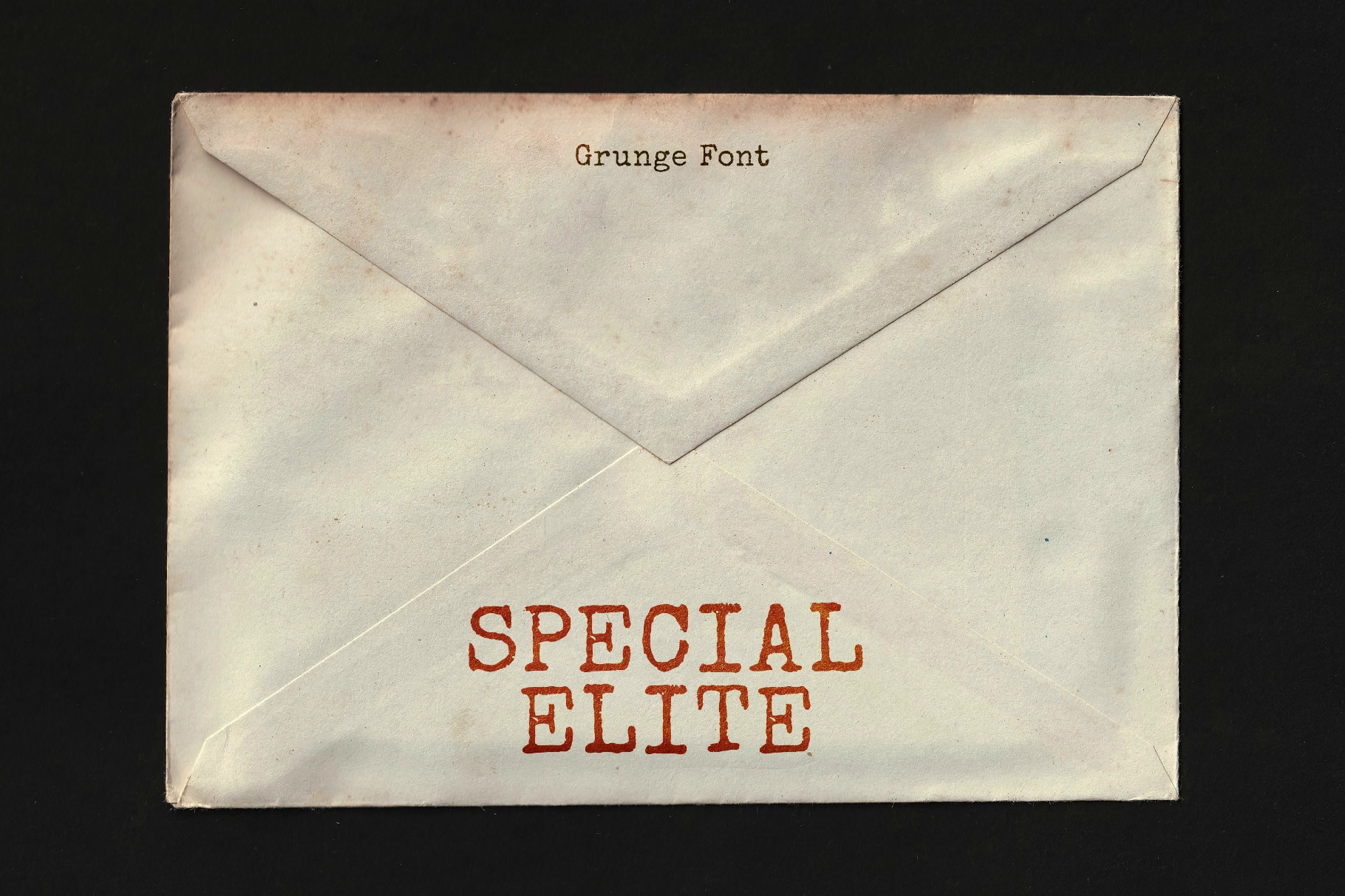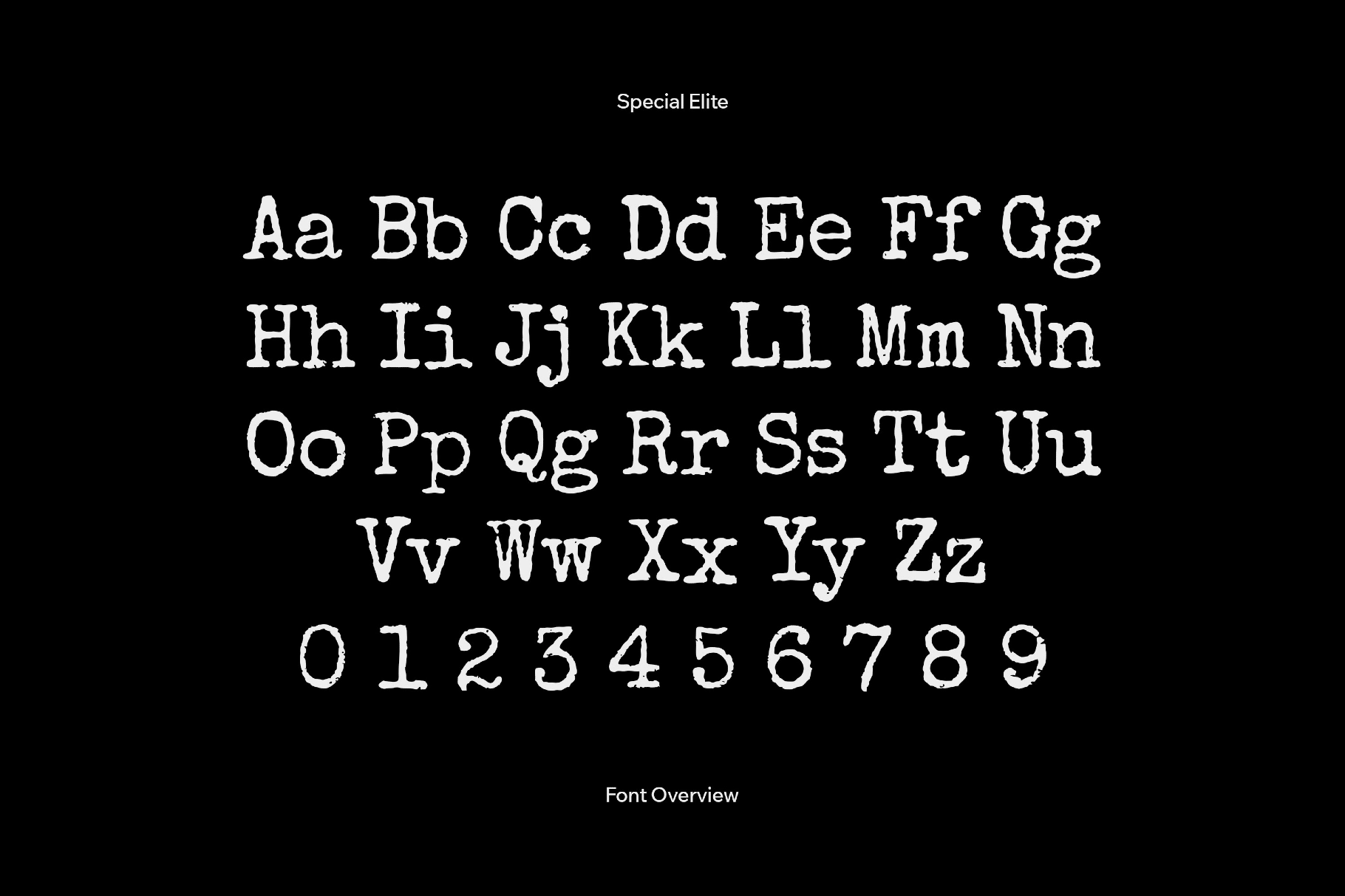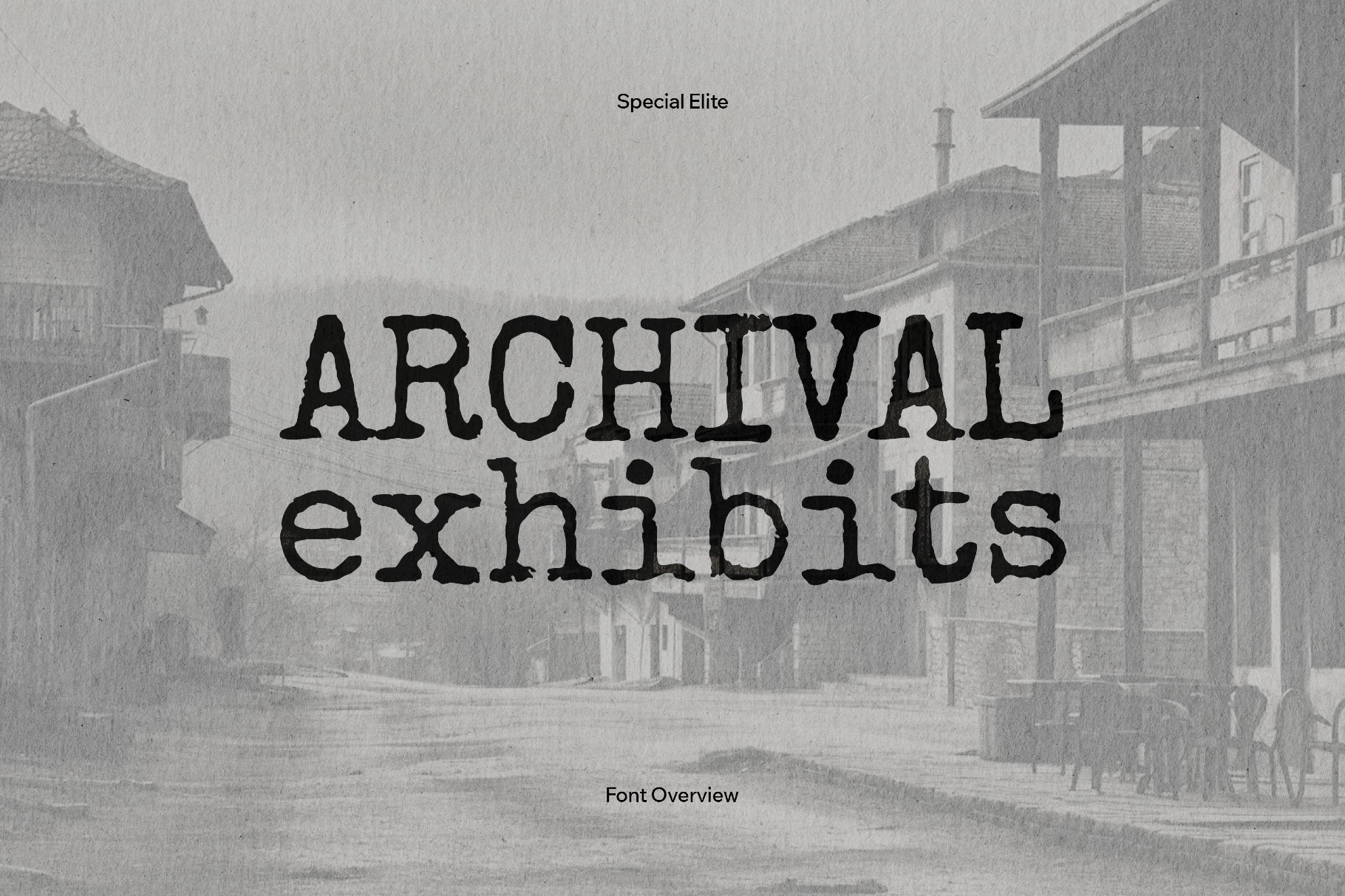
Special Elite Font
Special Elite font captures a worn typewriter voice — grungy, forensic-style face modeled after misaligned keys, dark ink, soft edges, and slightly jittery outlines. Characters celebrate their imperfections: soft breaks in the strokes, heavy blotches, and faint overstrikes.
Suited for detective-fiction covers, archival exhibits, redacted-file graphics, retro-tech branding, magazine layouts, thriller or noir titles, data-driven editorials, vintage UI prompts, protest posters, and packaging with a handmade attitude.